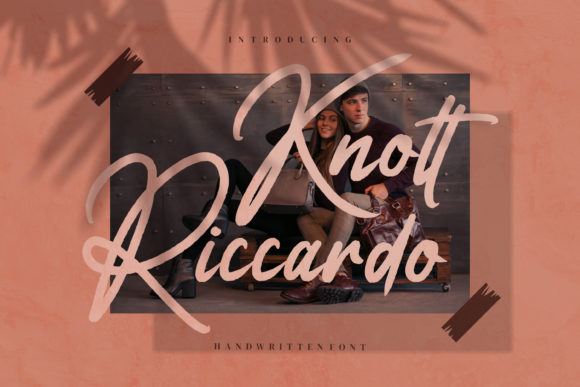
Step into the enchanting realm of Knott Riccardo – a captivating cursive script font that exudes elegance and charm. With its graceful strokes and swirls, this handwritten font is a masterpiece of artistry, meticulously crafted to infuse your designs with a touch of magic. Embark on a creative journey with Knott Riccardo, the perfect companion for adding a personalized flair to your projects.
Unleash your creativity and let Knott Riccardo grace your wedding invitations, transforming them into exquisite keepsakes. Its delicate curves and flowing lines will evoke a sense of romance and sophistication, leaving a lasting impression on your guests. Extend your gratitude with Knott Riccardo on your thank you cards, expressing your heartfelt appreciation with a touch of whimsy and elegance.
Celebrate life's special moments with Knott Riccardo as your chosen font, adding a delightful charm to greeting cards and logos. Its versatile nature makes it an ideal choice for a wide range of designs, from playful and quirky to formal and sophisticated. Let Knott Riccardo elevate your visual creations, captivating hearts and leaving an indelible mark.
With Knott Riccardo, you gain access to a treasure trove of glyphs and ligatures, effortlessly accessible through PUA encoding. Unleash your imagination and explore endless possibilities, crafting unique and enchanting designs that radiate personality and style. Knott Riccardo is more than just a font; it's an artistic expression that breathes life into your creative vision.